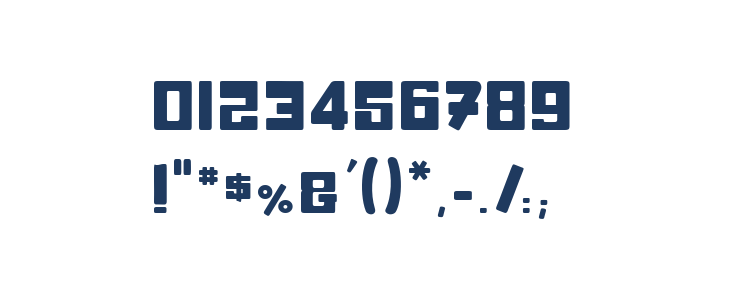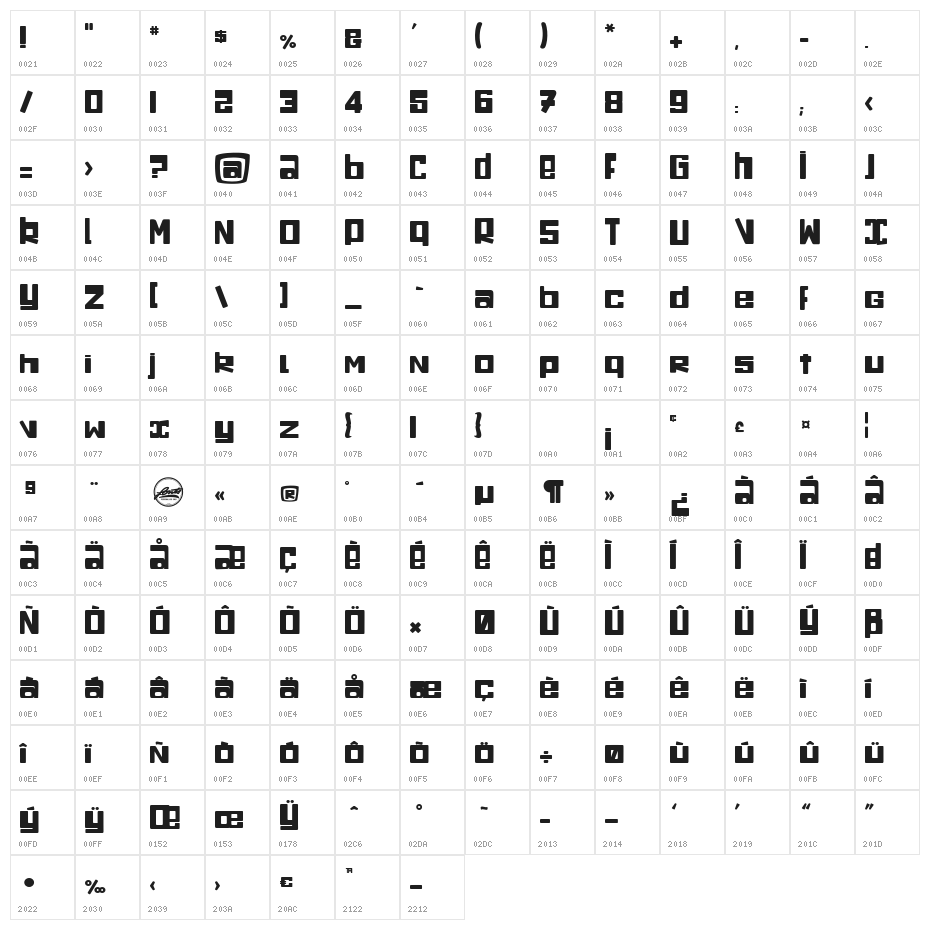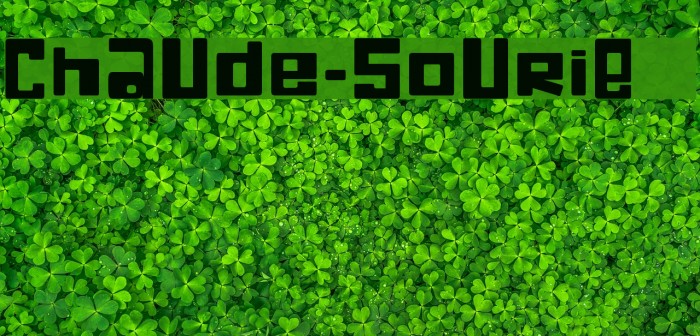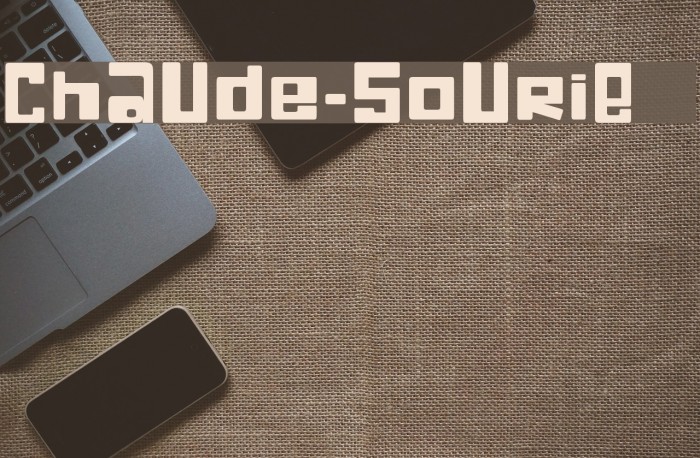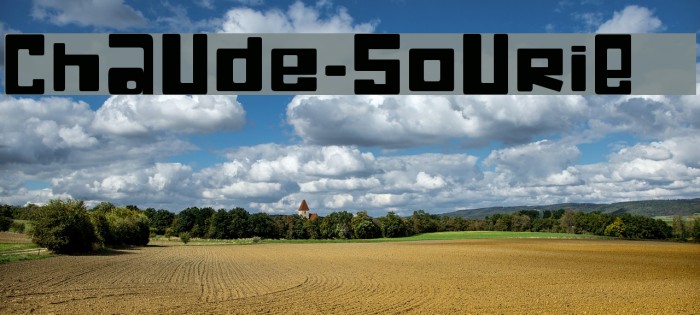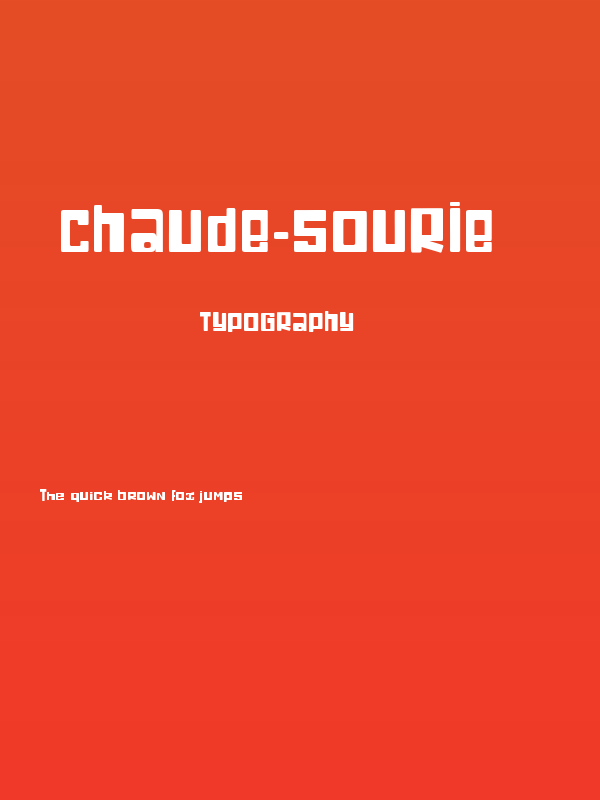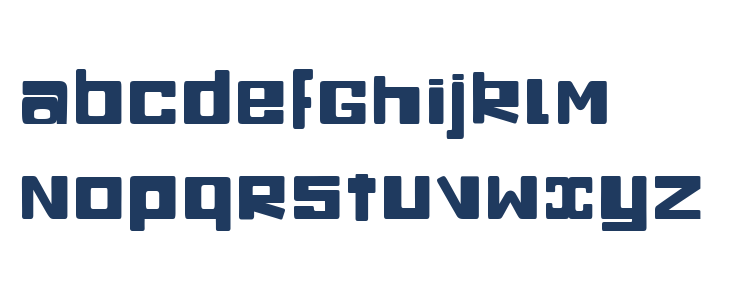
ChAUde-SoUriE Font
ChAUde-SoUriE Description
This font features a bold and geometric design with a strong presence. The characters are blocky and angular, giving it a futuristic and industrial feel. The uppercase and lowercase letters maintain a consistent width, creating a uniform appearance. The numbers are similarly styled, with a robust and sturdy look. Special characters are designed to match the overall aesthetic, ensuring cohesion across all elements. The font's thick strokes and sharp angles make it highly legible and impactful, ideal for making a statement.
| Proposed Projects | Ideal for branding, posters, headlines, and any project requiring a strong, modern aesthetic. |